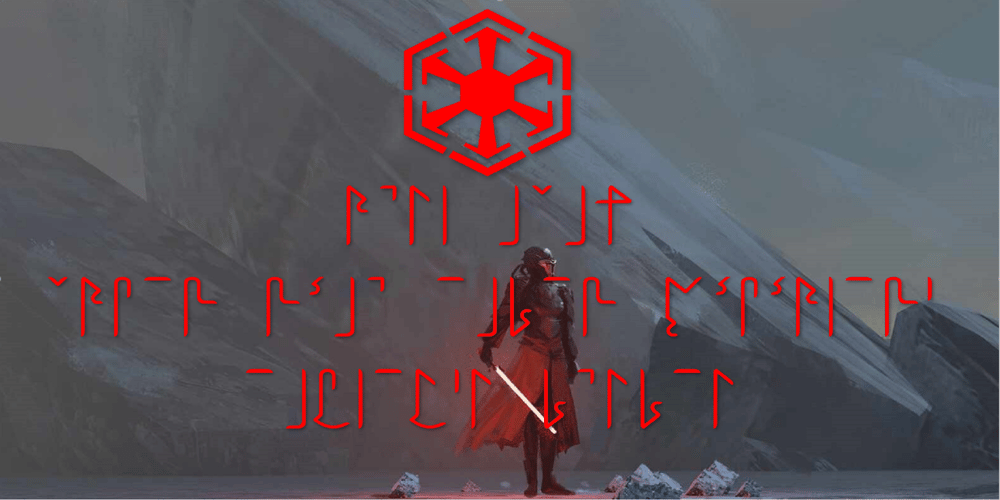
Ongunkan Star Wars Sith Kittat Font Family was designed by Osman Nuri ALKAN and published by Runic World Tamgacı. Ongunkan Star Wars Sith Kittat contains 1 styles and family package options. Star WarsSith was the native language of the people of Ziost and Korriban. It was adopted as the mystical language of the Sith Order after the Dark Jedi Exiles enslaved the Sith species. Sith was an agglutinative language, in which words or even phrases were made up of linears sequences of distinct meaningful units. Despite the preeminence of the Galactic Basic Standard, the Sith language remained in use up until the post-Imperial era. To the Lost Tribe of Sith, an order founded on the remote planet Kesh, the Sith language was known as the Old Tongue.